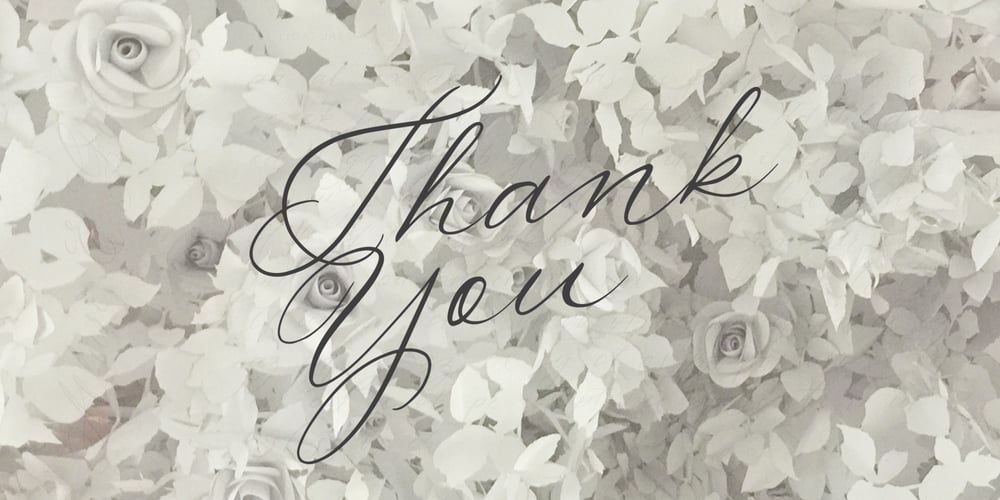
Allure And Grace Font Family was designed by Anna Markovets and published by Anmark. Allure And Grace contains 1 styles and family package options. Allure and Grace is an elegant, feminine font. The modern calligraphy uppercase letters are ideal for your wedding monograms and logos. Use this font for wedding invitations, branding, packaging, magazines, florist shops, social media, restaurant menus, greeting cards, headers and many more. This font includes 121 stunning ligatures to make your text as close to a natural handwritten script as possible. It’s perfect for wedding design projects, instagram, invitations, signatures, watermarks, logos, letterpress address, titles, birthday invitations, handwriting and other. The font has extensive language support, it includes English and European latin-based languages: French, Italian, Spanish, Portuguese, German, Swedish, Norwegian, Danish, Finnish and other.